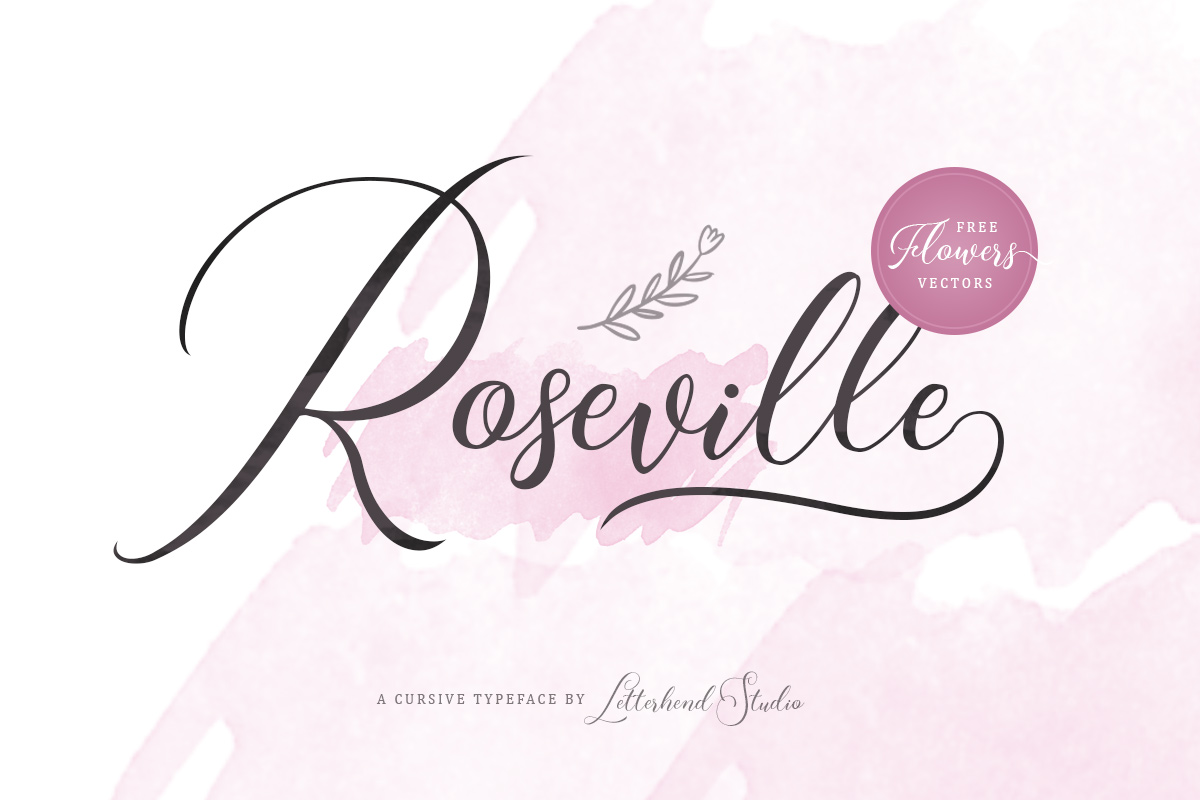
Roseville Script Font
Roseville Script Font is perfect for romantic wedding invitations, elegant calligraphy projects, luxury boutique branding, sophisticated greeting cards, feminine beauty product packaging, upscale floral shop signage, artisanal handmade labels, premium jewelry branding, delicate fashion accessories, and graceful social media graphics. This flowing typeface brings enchanting charm to bridal stationery, romantic restaurant menus, vintage-inspired designs, elegant blog headers, and refined lifestyle brand materials.
Roseville Script Font is exciting because it captures the essence of handwritten elegance through its beautifully flowing letterforms and romantic character connections. The font features graceful script strokes with delicate curves and sophisticated flourishes that evoke the artistry of traditional calligraphy masters. Its distinctive flowing rhythm and carefully crafted letter spacing create an authentic handwritten feel while maintaining excellent readability across various applications. The font's romantic elegance and feminine charm make it perfect for brands seeking to communicate sophistication, personal touch, and timeless beauty in their visual communications.
The Roseville Script Font family includes various elegant styles: Regular, Bold, Light, Ornate, Simple, Flourished, Condensed, Extended, Shadow, Outline, Swash, and Decorative variants. Each family member maintains the core romantic script DNA while offering different levels of ornamentation for diverse elegant design applications. The comprehensive font collection ensures consistent sophisticated branding across wedding collections, luxury product lines, and feminine-focused marketing campaigns.
Whether you're designing wedding brand identities, creating luxury product packaging, developing elegant website headers, or crafting romantic marketing materials, Roseville Script Font delivers outstanding feminine appeal and sophisticated charm. The font's distinctive flowing personality excels in logo design, invitation suites, packaging applications, and luxury branding where romantic elegance and handcrafted authenticity are essential.